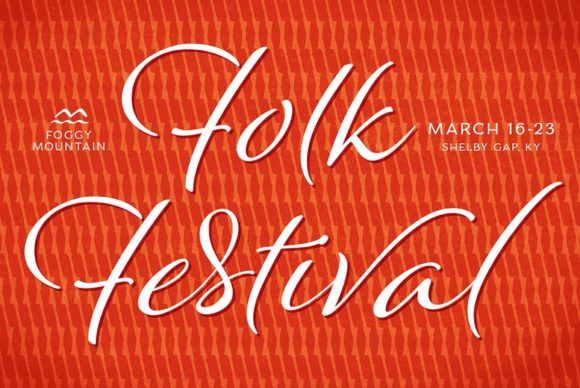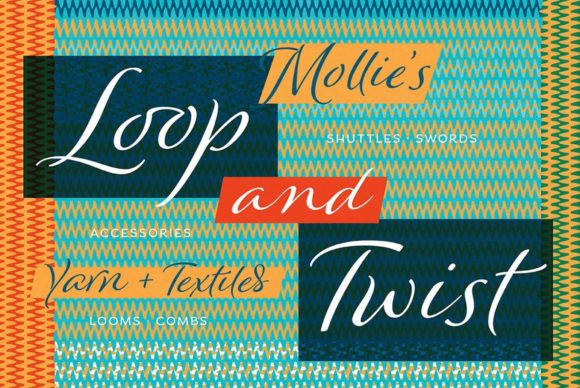
About Winsome Font
How many ways can a typeface charm its reader? The aptly named Winsome offers virtually endless variety, in a friendly script face that balances the casual with the calligraphic. Customize it with over 600 alternates, swash characters, and ligatures. Winsome even includes a disconnected version via the titling feature, for even more typographic versatility. With generous letterspacing and unfussy letterforms, Winsome is always a pleasure to read.